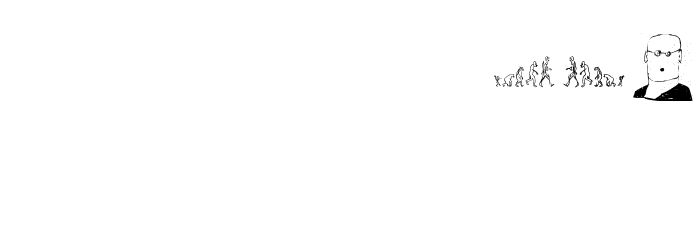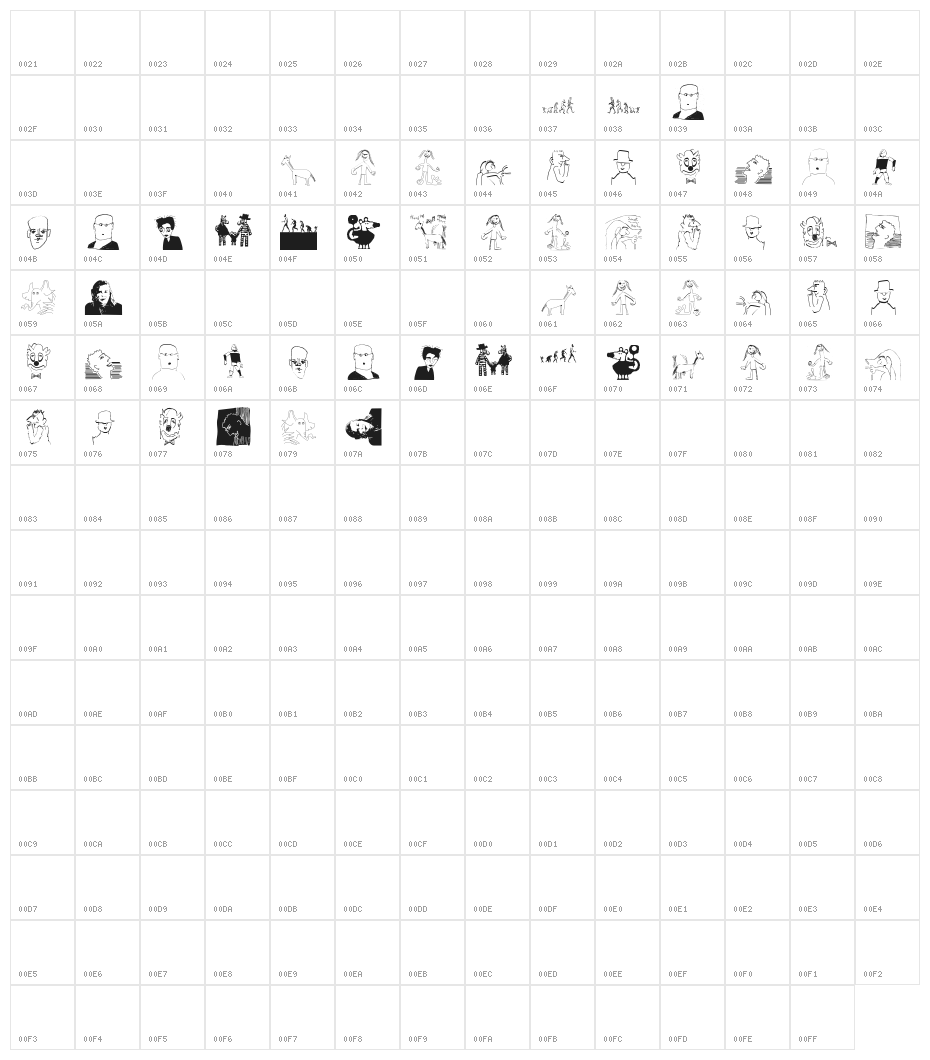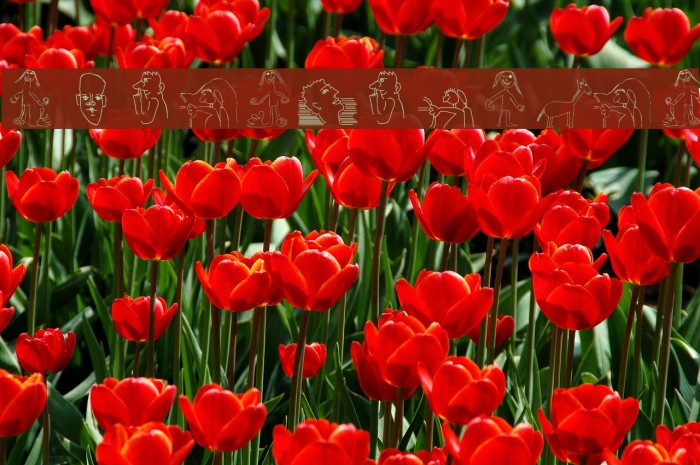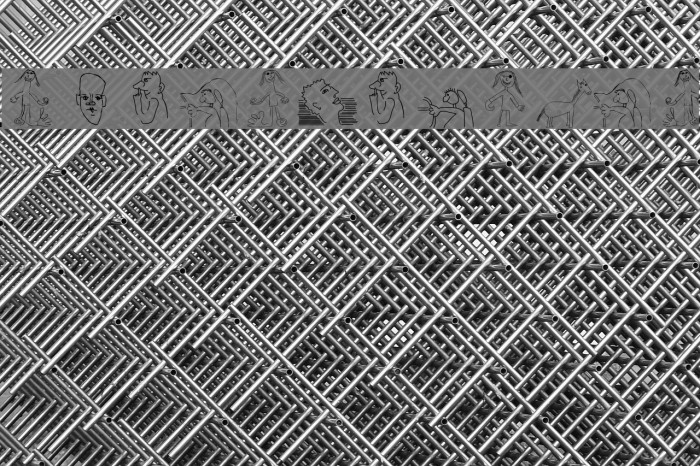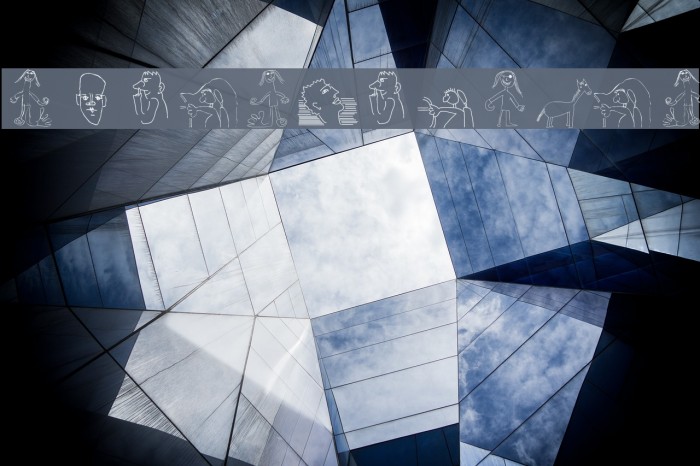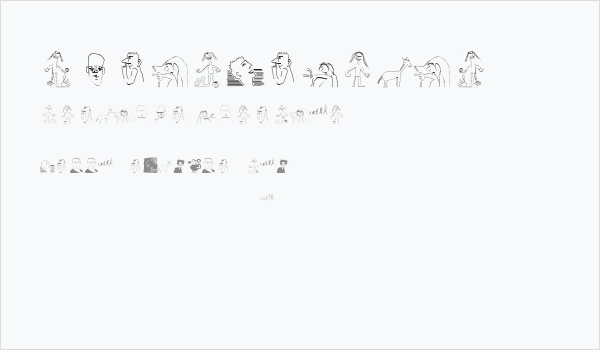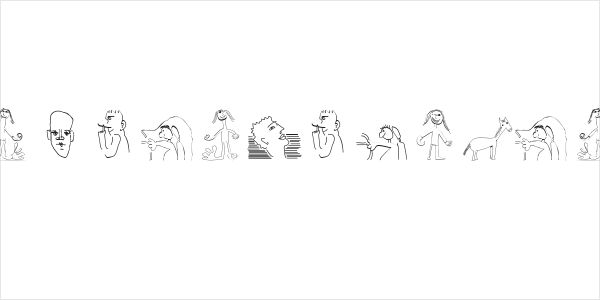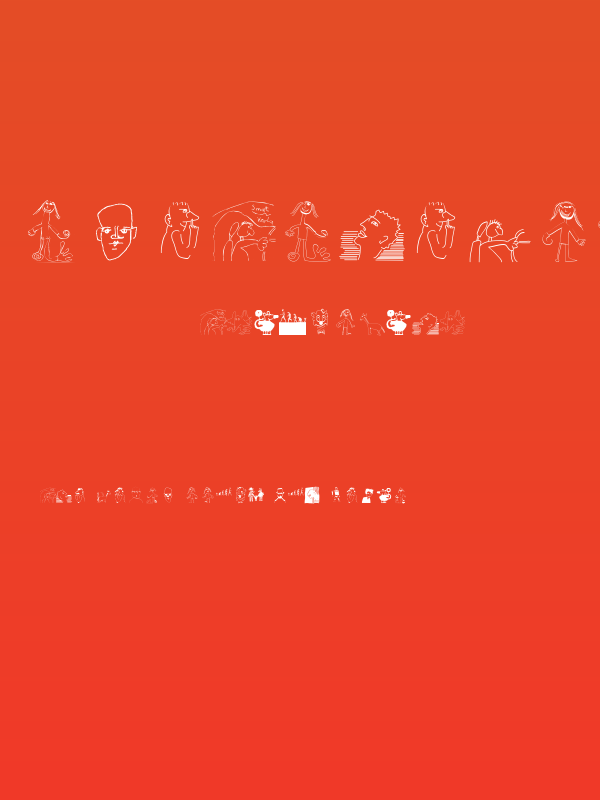
SketchedBats Font
SketchedBats Description
This is not a traditional font but rather a collection of sketched illustrations. Each character is represented by a unique drawing, ranging from whimsical figures to abstract designs. The style is playful and artistic, with each illustration conveying a distinct personality. The characters are not uniform in size or shape, adding to the eclectic and creative nature of the set. This collection is more suited for decorative purposes rather than standard text representation.
| Overall Style | Artistic and playful. |
| Use Case | Decorative elements in design projects. |
| Proposed Projects | Ideal for creative projects such as posters, art prints, or any design work that benefits from a unique and artistic touch. |